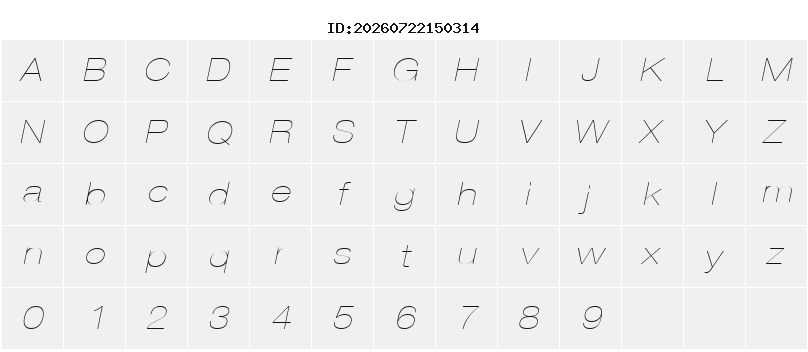
• Font Name: HelveticaNeueLT Com 23 UltLtEx
• Font ID: Linotype GmbH:Helvetica Neue LT Com 23 Ultra Light Extended Oblique:2006
• Full Font Name: Helvetica Neue LT Com 23 Ultra Light Extended Oblique
• Designer: Linotype Design Studio
• Manufacturer: Linotype GmbH
• Description: Helvetica is one of the most famous and popular typefaces in the world. It lends an air of lucid efficiency to any typographic message with its clean, no-nonsense shapes. The original typeface was called Haas Grotesk, and was designed in 1957 by Max Miedinger for the Haas'sche Schriftgiesserei (Haas Type Foundry) in Switzerland. In 1960 the name was changed to Helvetica (an adaptation of "Helvetia", the Latin name for Switzerland). Over the years, the Helvetica family was expanded to include many different weights, but these were not as well coordinated with each other as they might have been. In 1983, D. Stempel AG and Linotype re-designed and digitized Neue Helvetica and updated it into a cohesive font family. Today, the original Helvetica family consists of 34 different font weights, and the Neue Helvetica family consists of 51 font weights. The Helvetica family now forms an integral part of many digital printers and operating systems and has become a stylistic anchor in our visual culture. It is the quintessential sans serif font, timeless and neutral, and can be used for all types of communication. Helvetica World, an update to the classic Helvetica design using the OpenType font format, contains the following Microsoft code pages: 1252 Latin 1, 1250 Latin 2 Eastern, 1251 Cyrillic, 1253 Greek, 1254 Turk, 1255 Hebrew, 1256 Arabic, 1257 Windows Baltic, 1258 Windows Vietnamese, as well as a mixture of box drawing element glyphs and mathematical symbols & operators. In total, each weight of Helvetica World contains more than 1850 different glyph characters!
About HelveticaNeueLT Com 23 UltLtEx.ttf
HelveticaNeueLT Com 23 UltLtEx.ttf is a modern, elegant sans-serif font designed for ultimate readability and visual harmony. Perfect for branding, headlines, web design, and print materials.